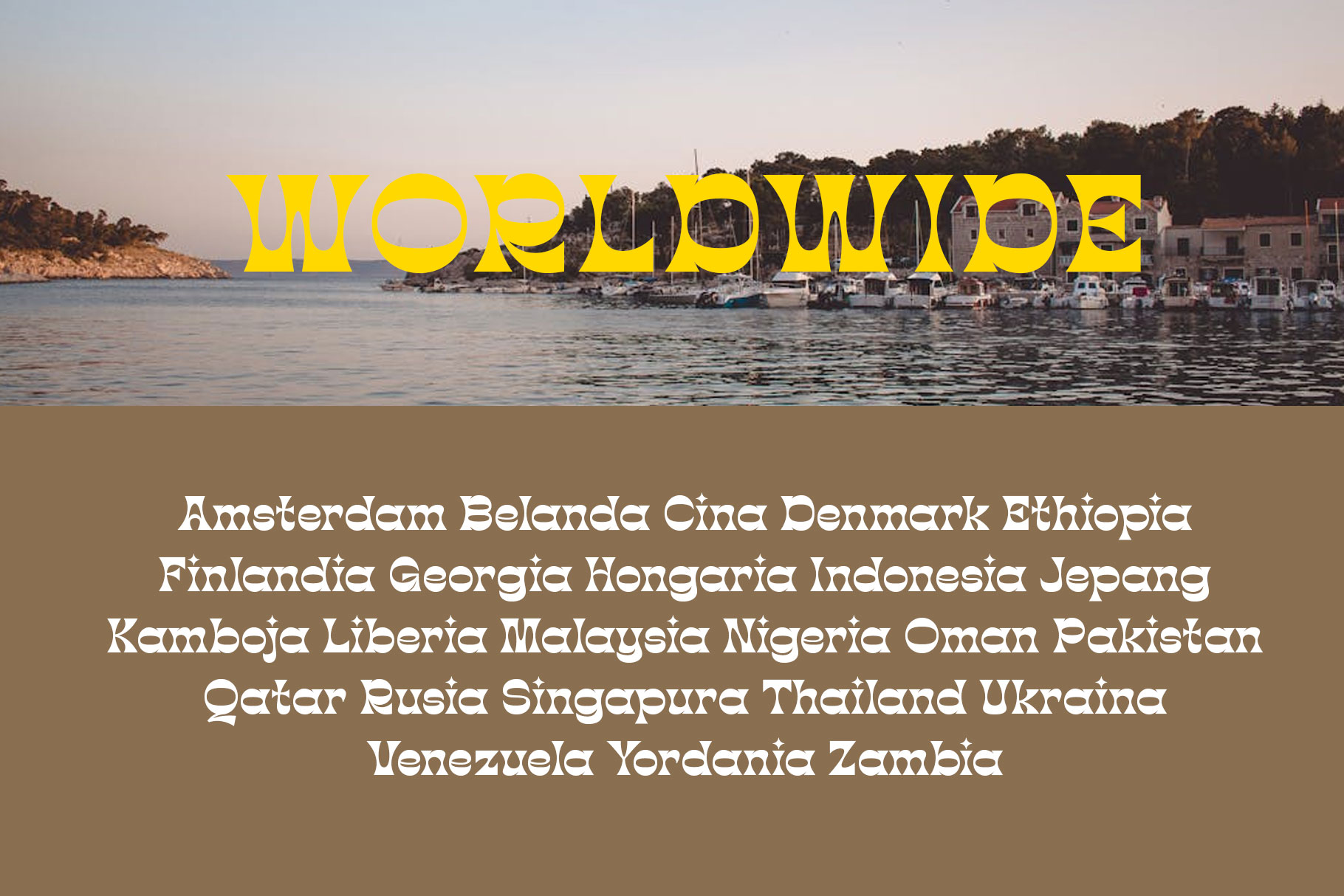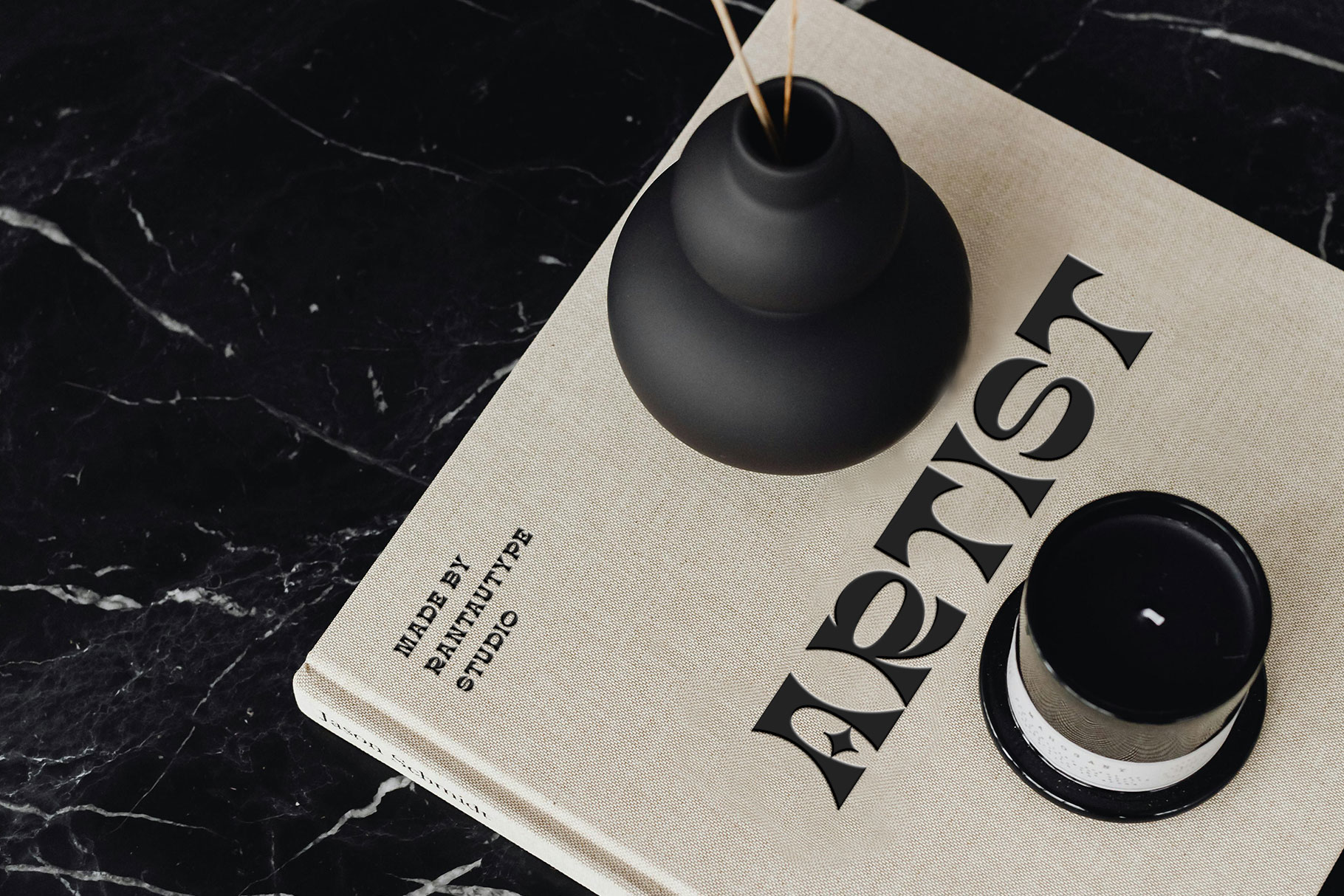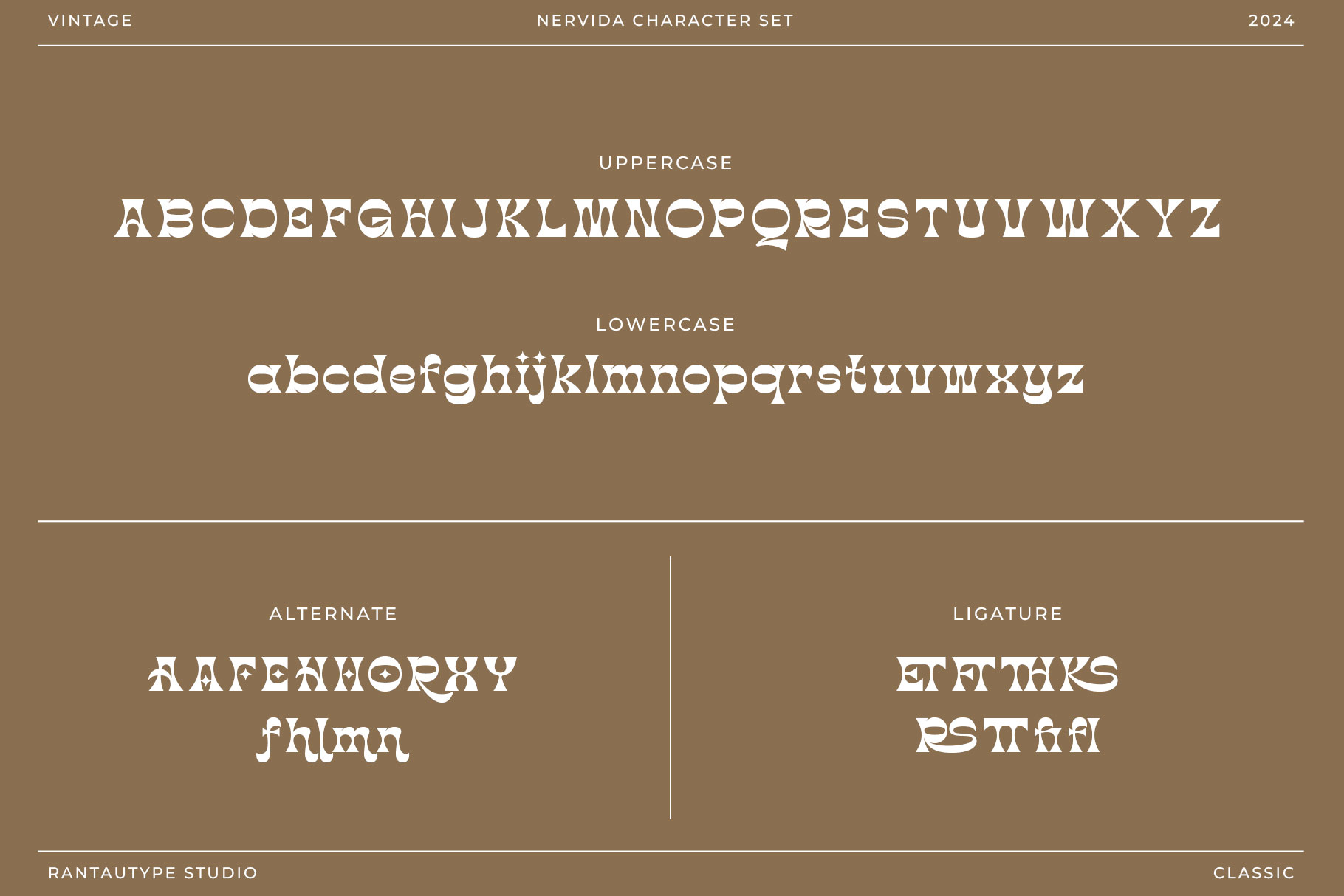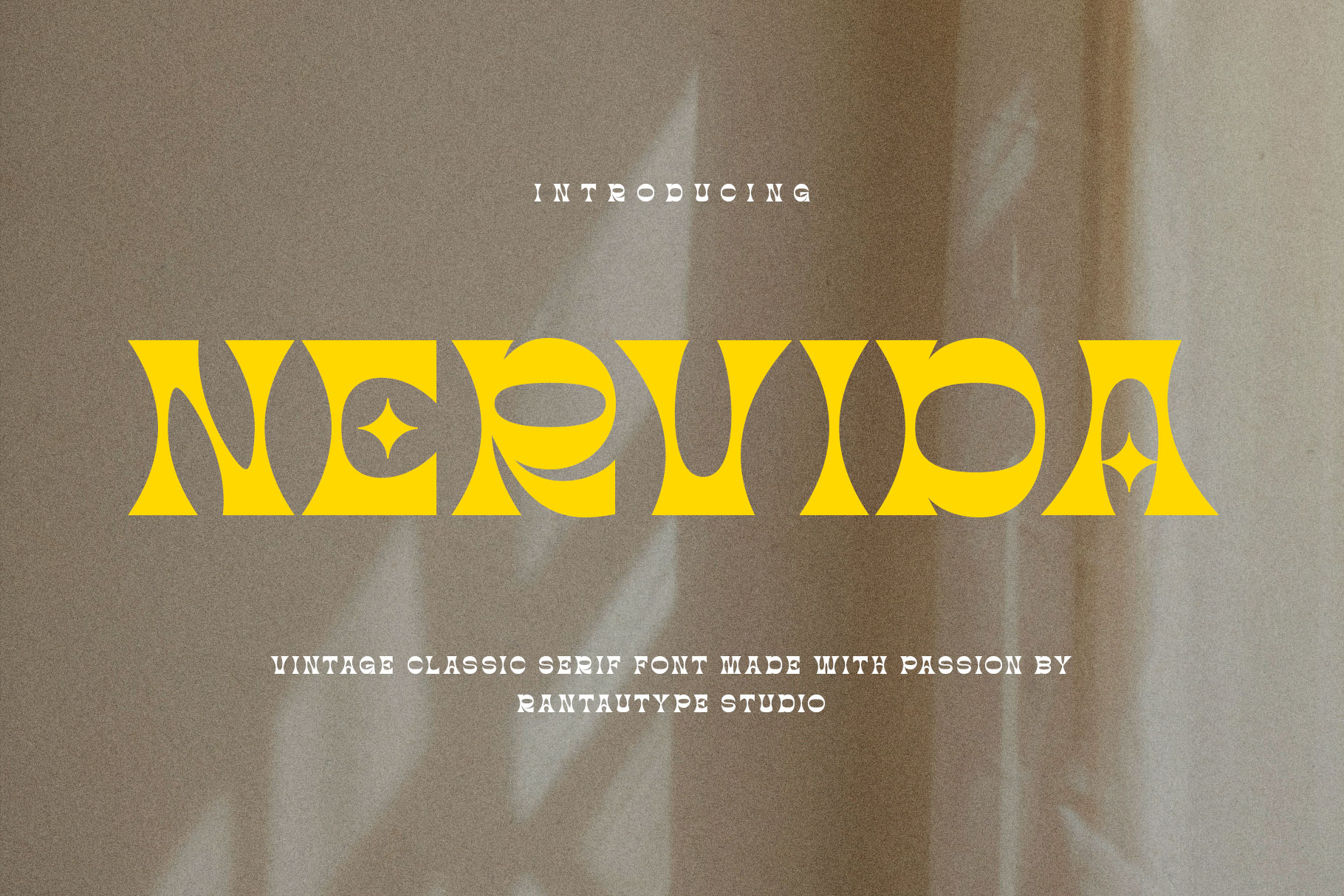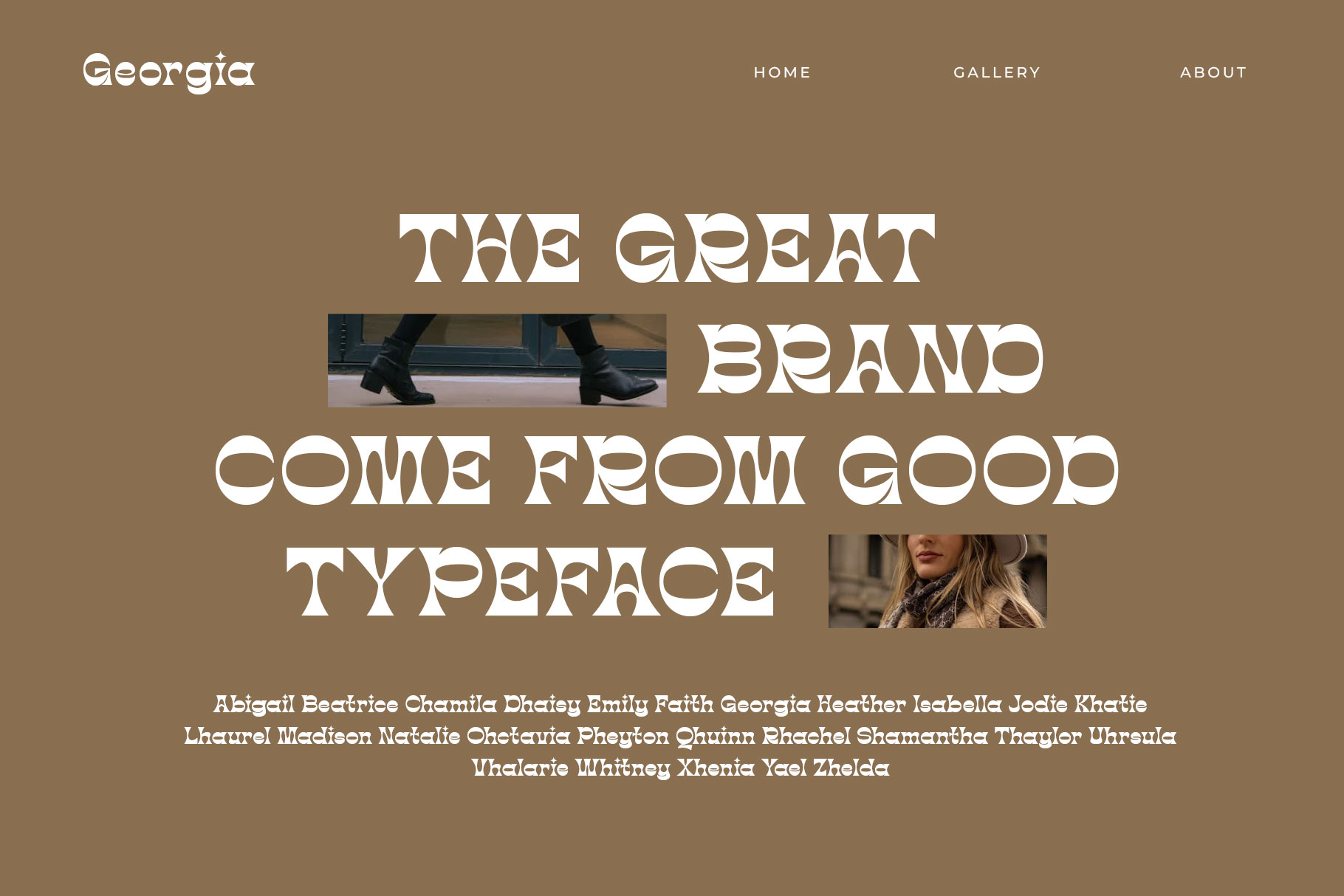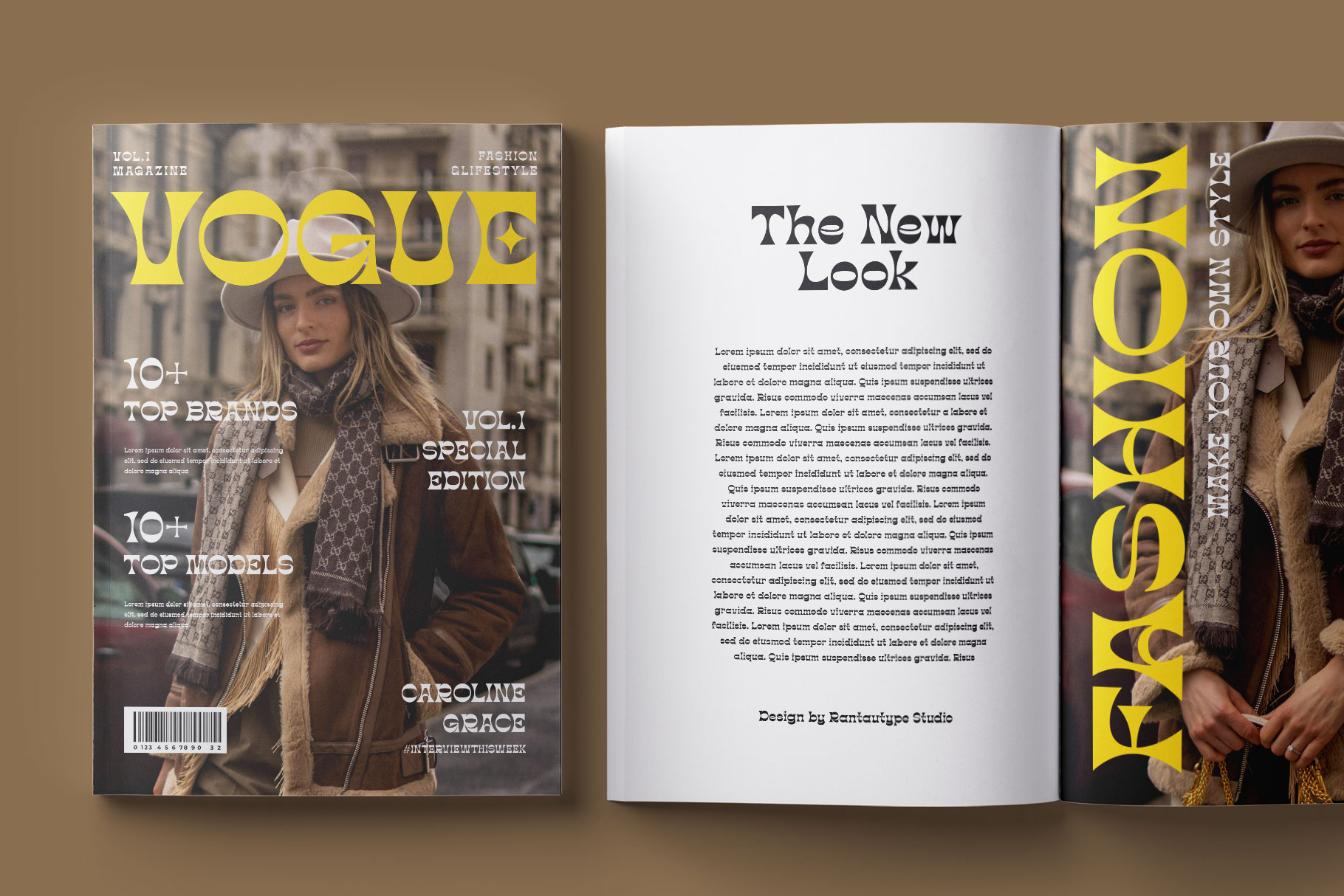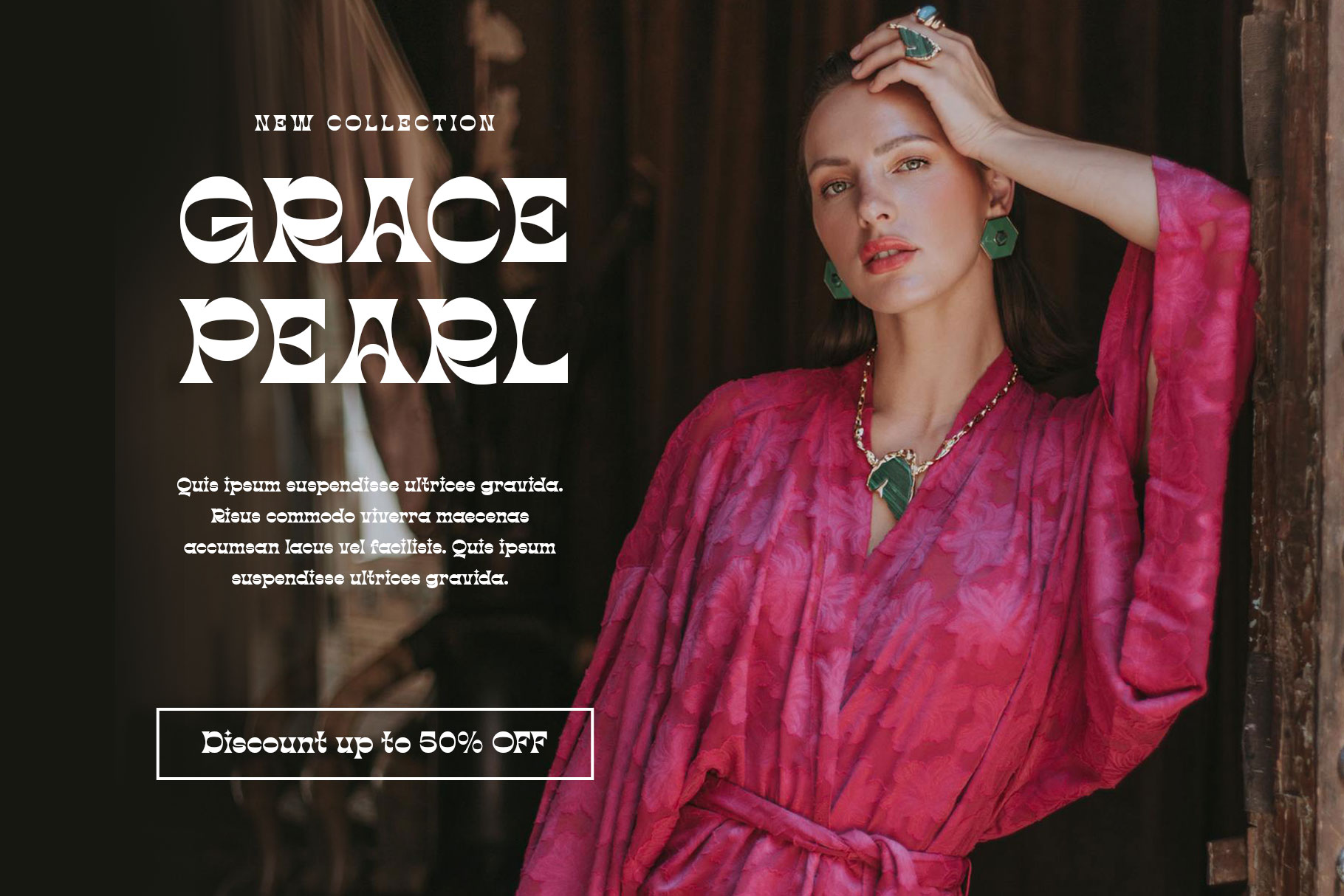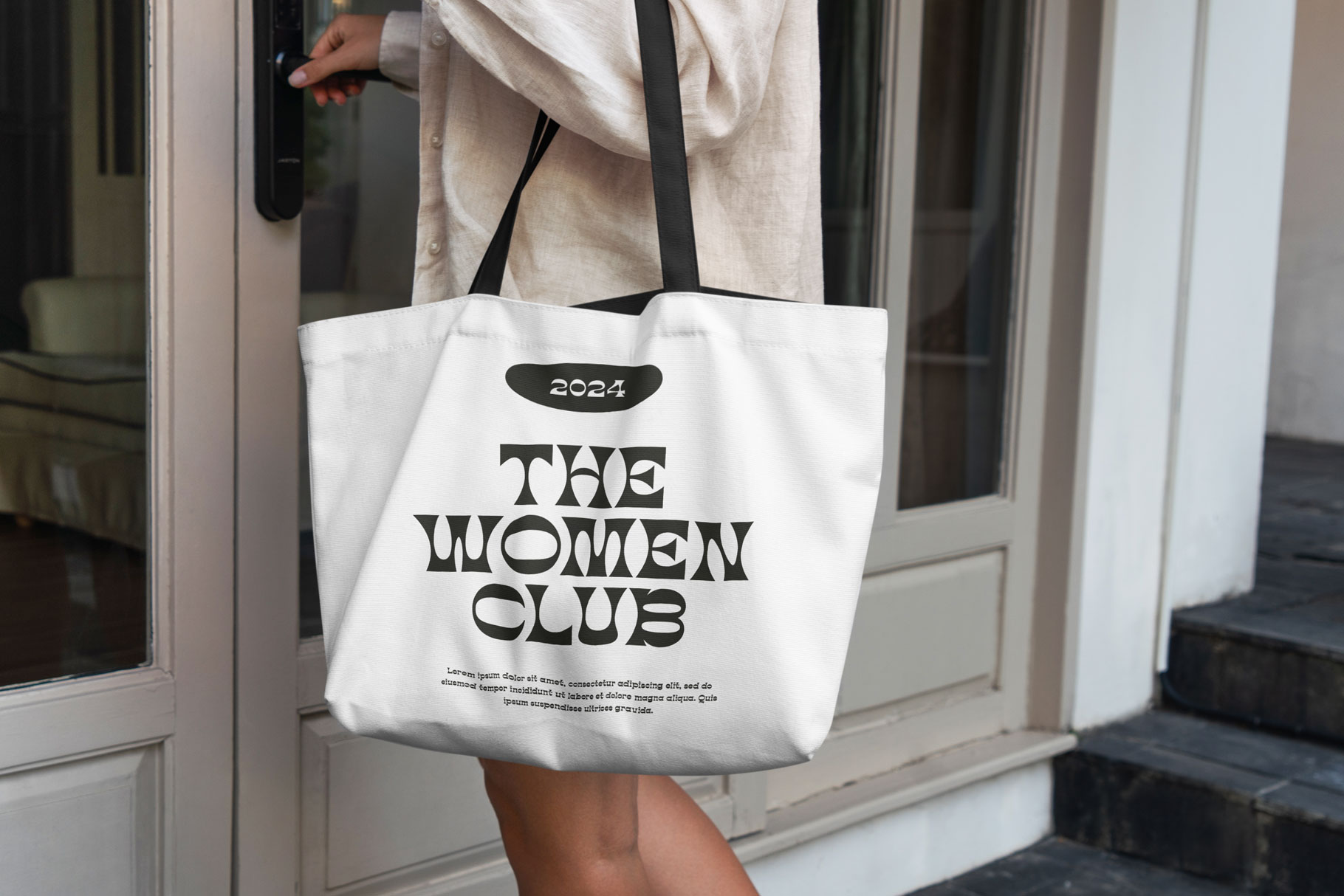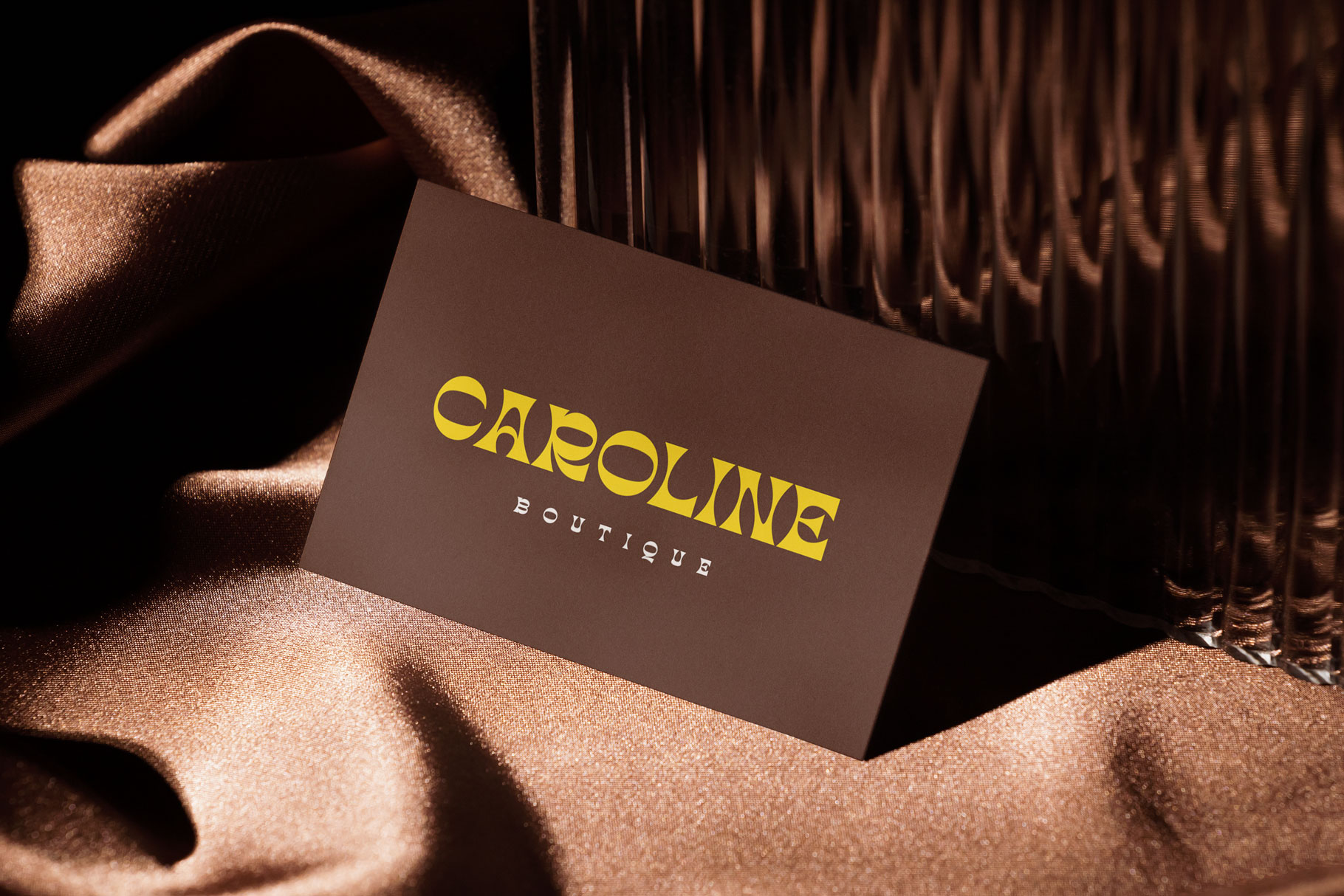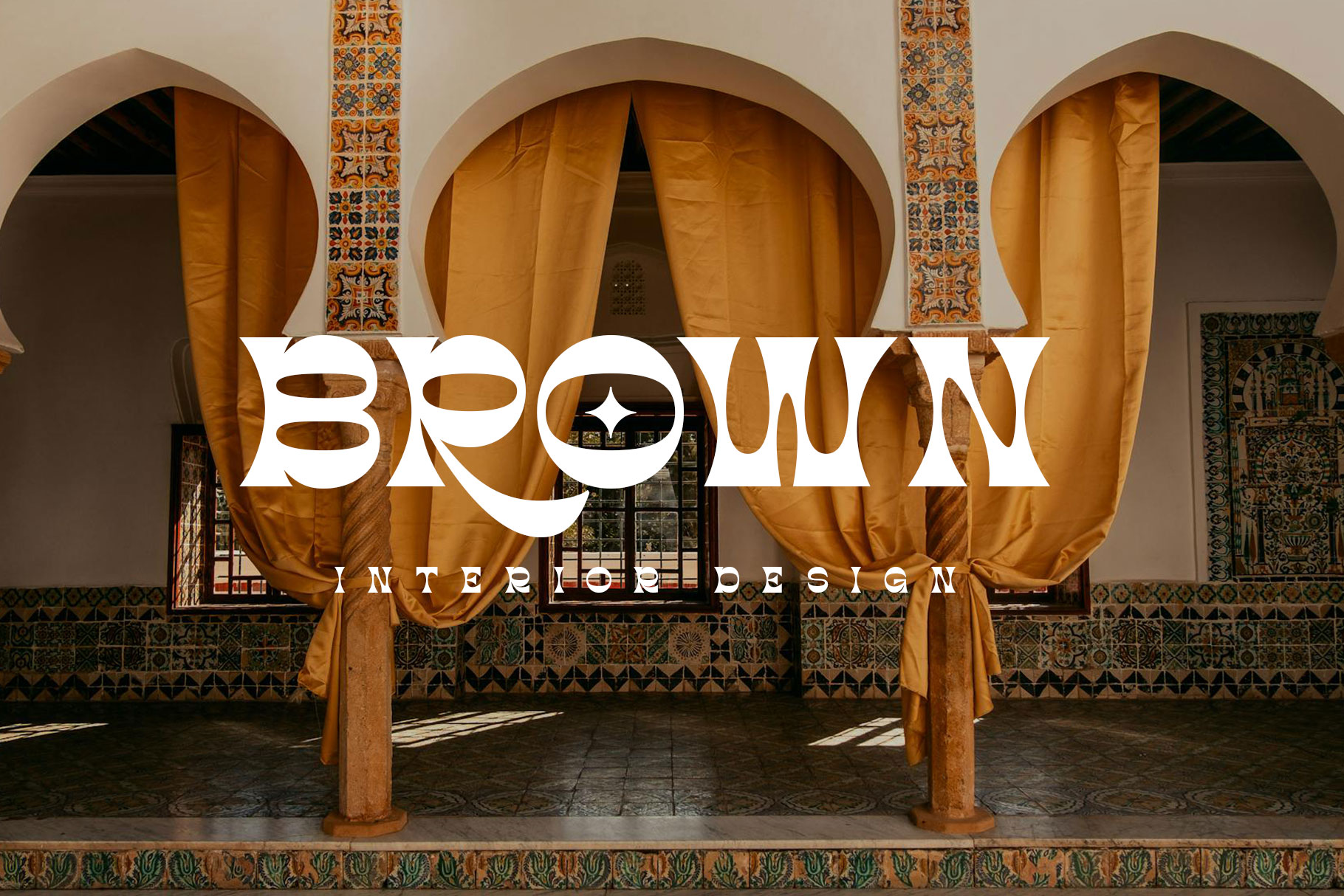
Nervida Classic Vintage Font
Nervida is contast vintage font inspire by Nouveau Art which has a classic style that is so elegant. Nervida is a perfectly choice for any creative endeavor, chic, lifestyle design such as logos, advertisements, stationery, branding project, display and magazine, invitation, corporate brand, product design, label, business project and many other project with elegant touch.